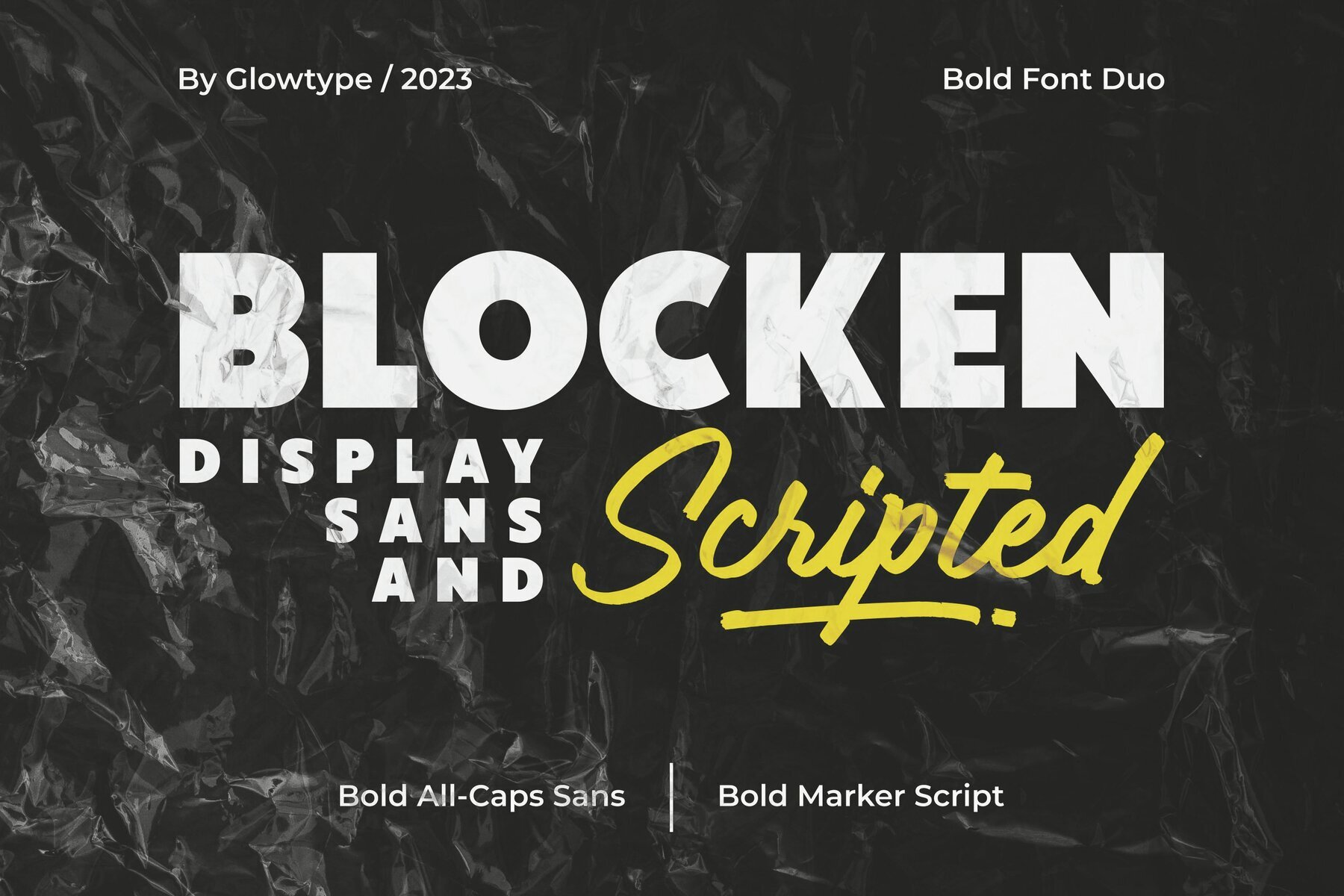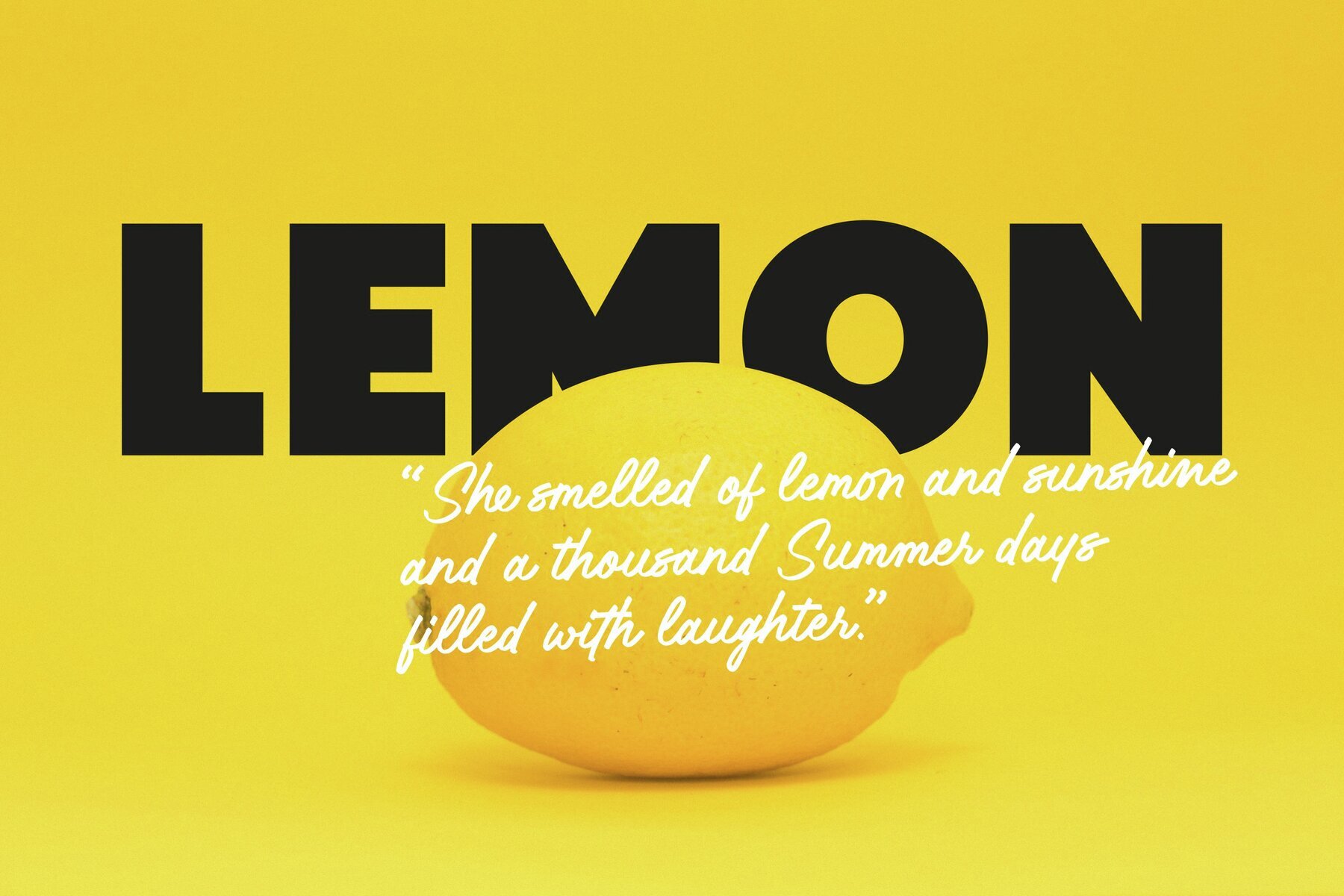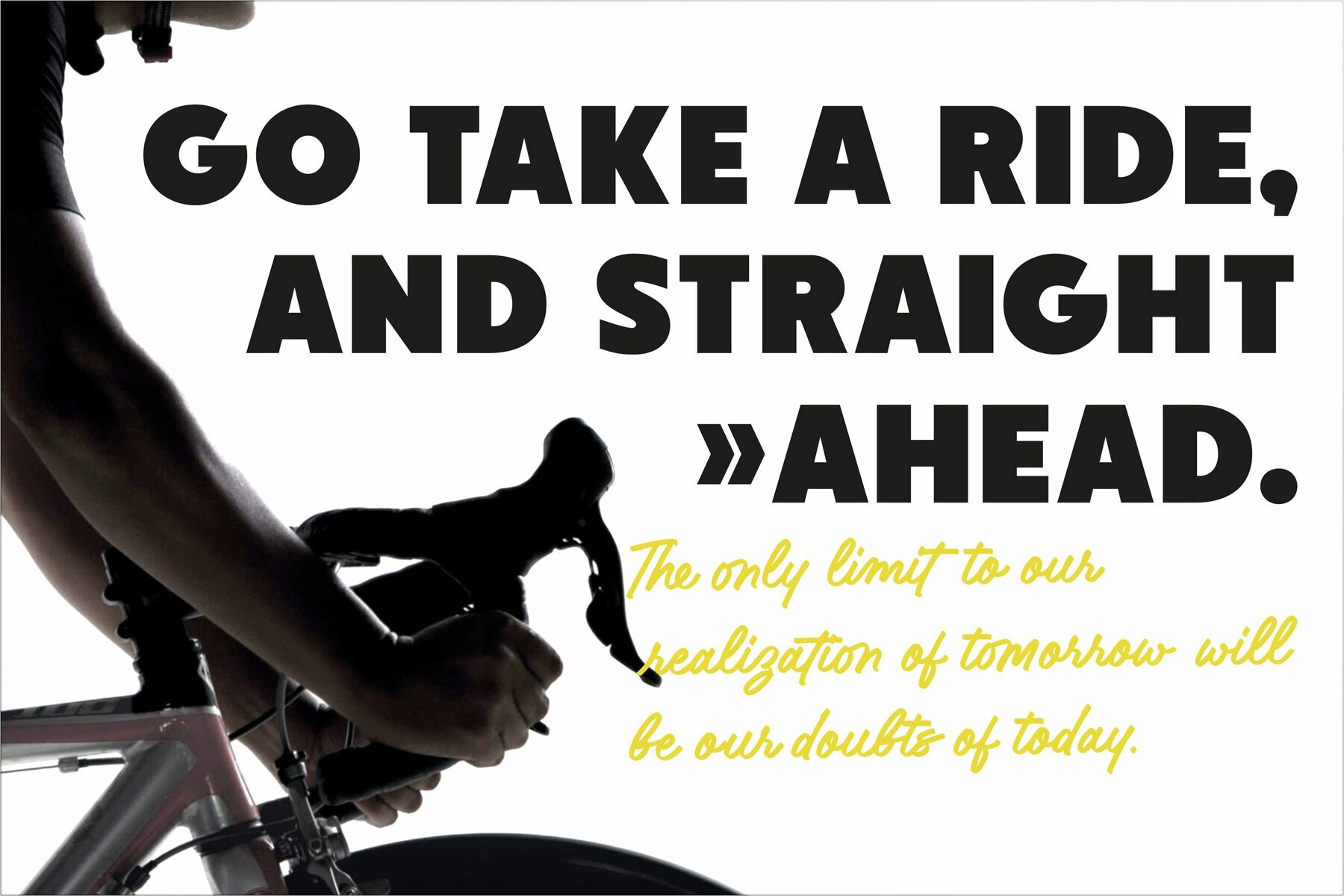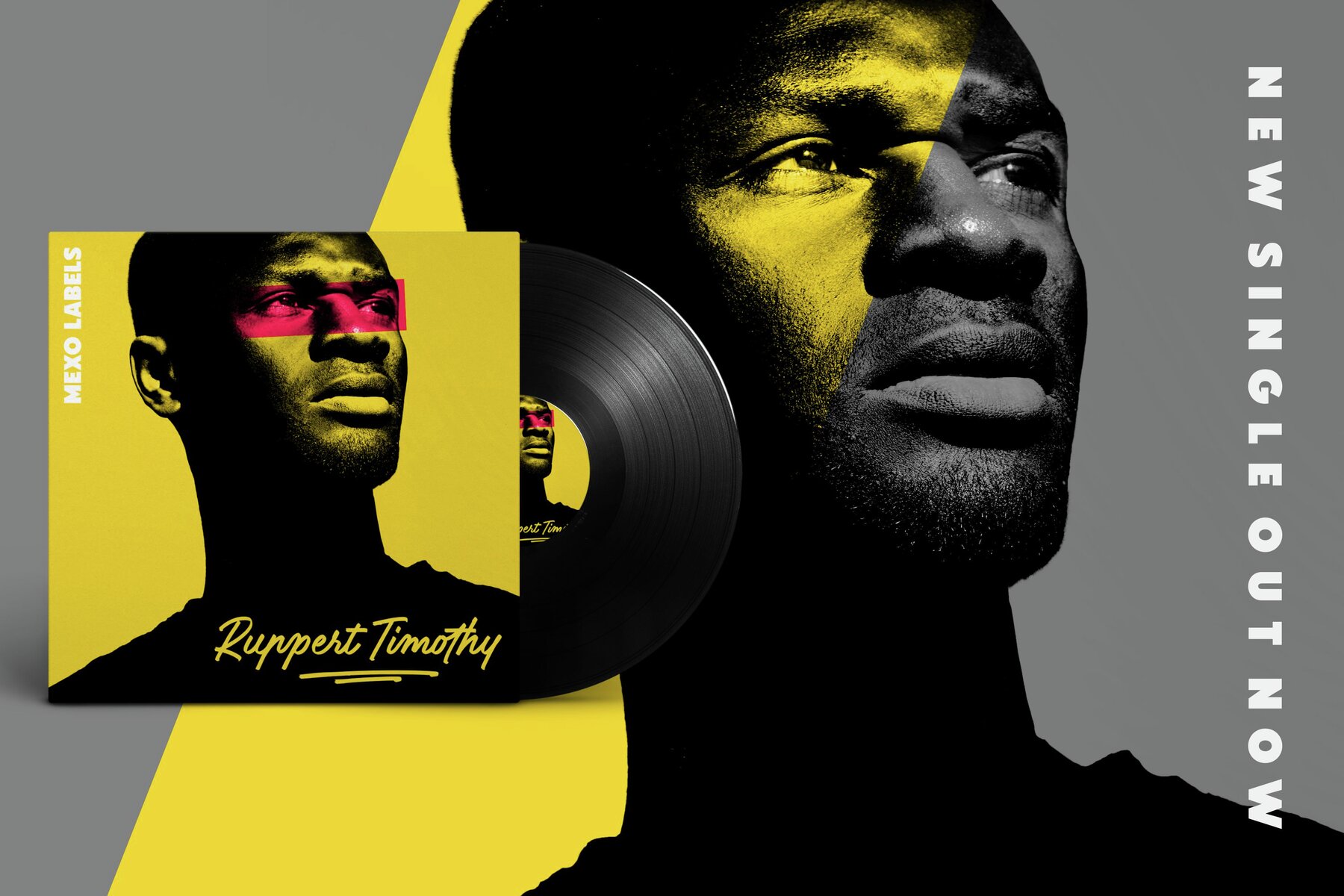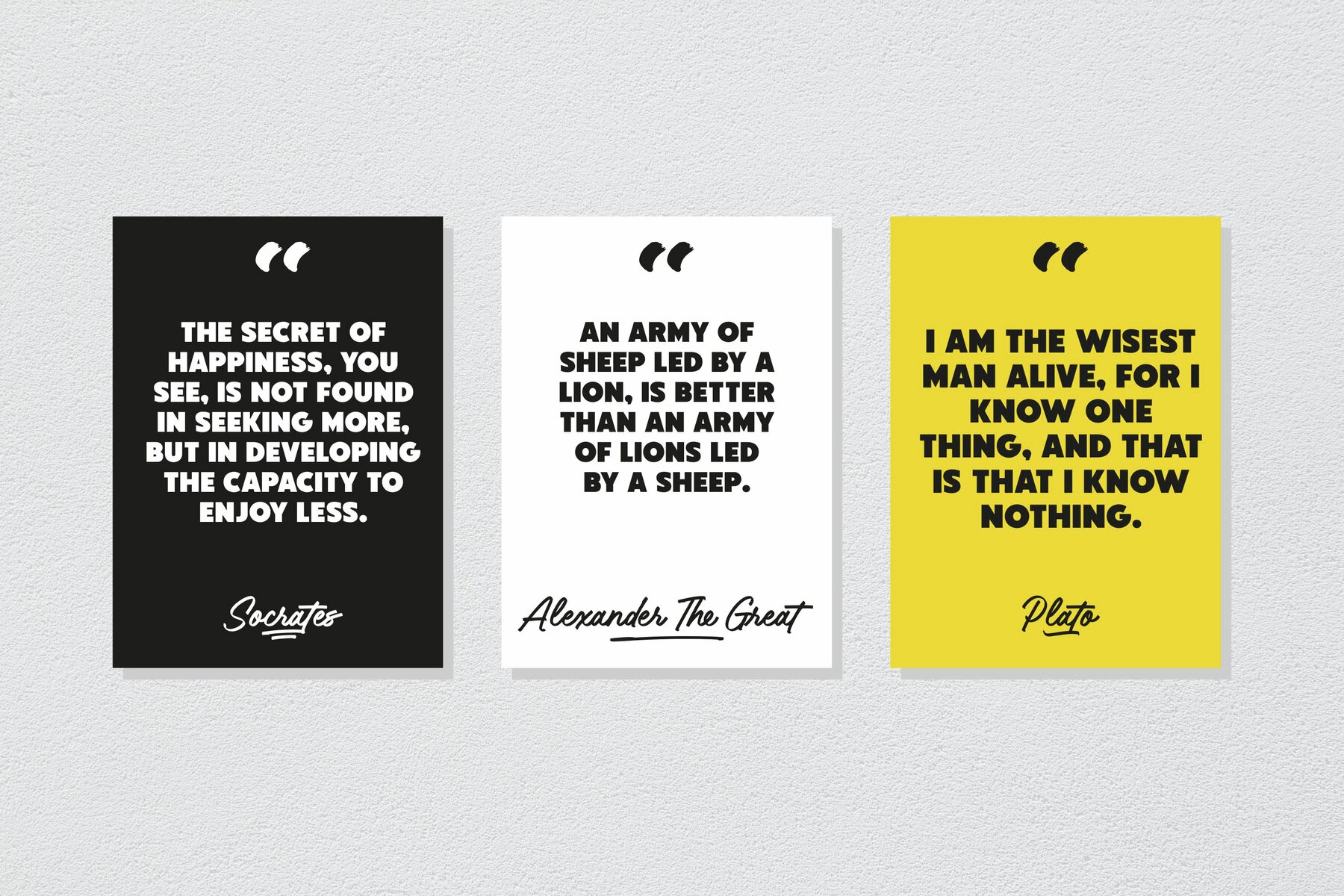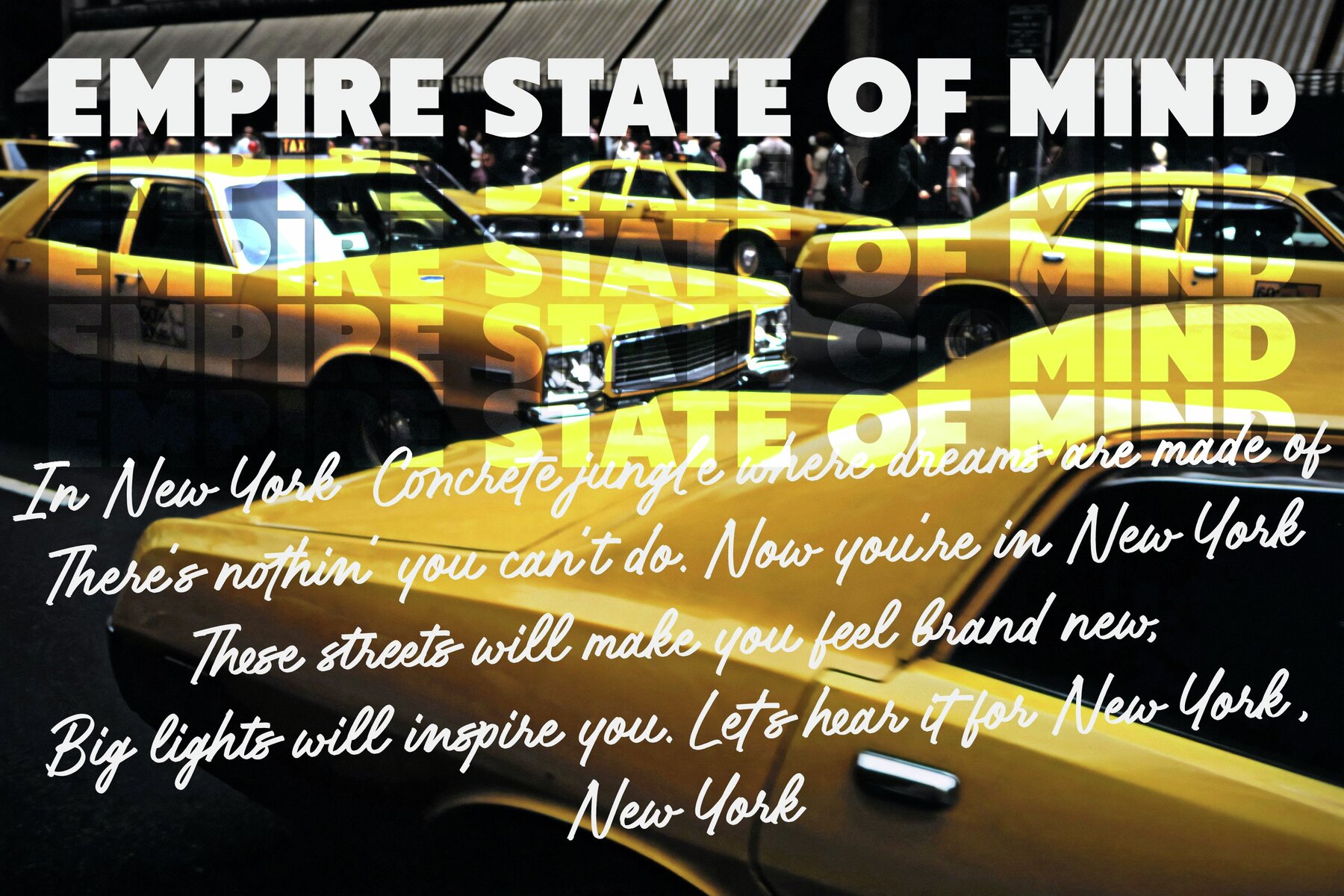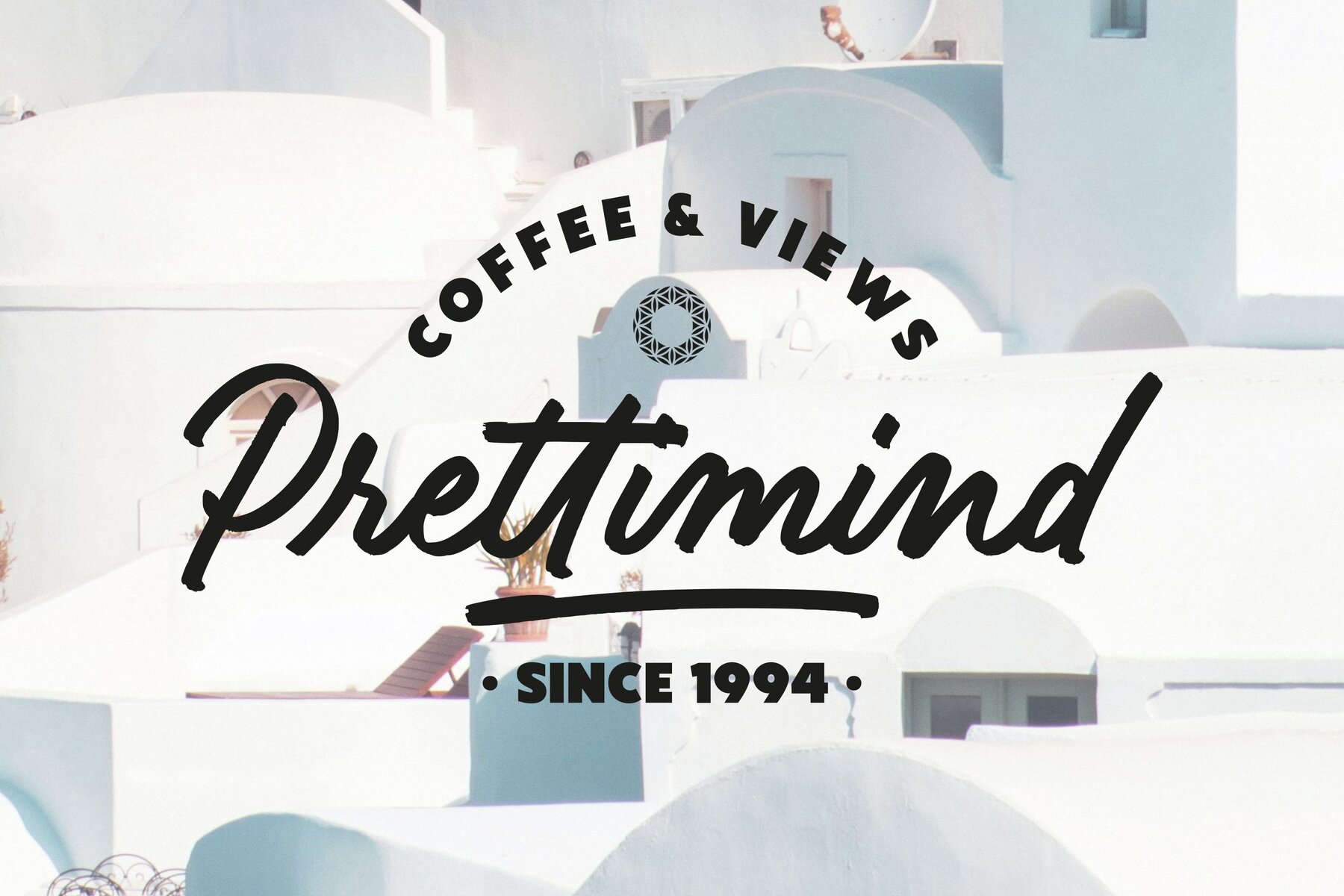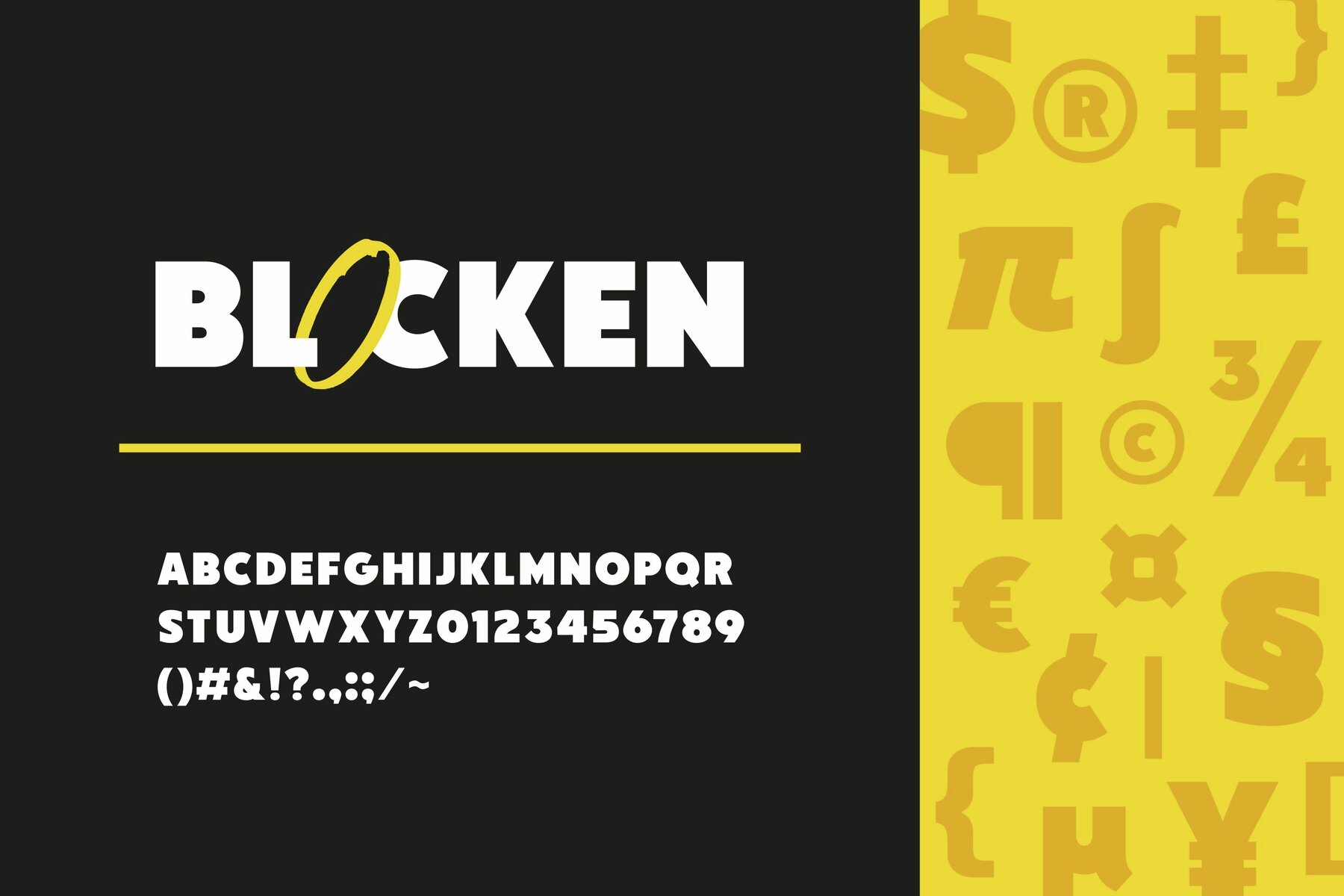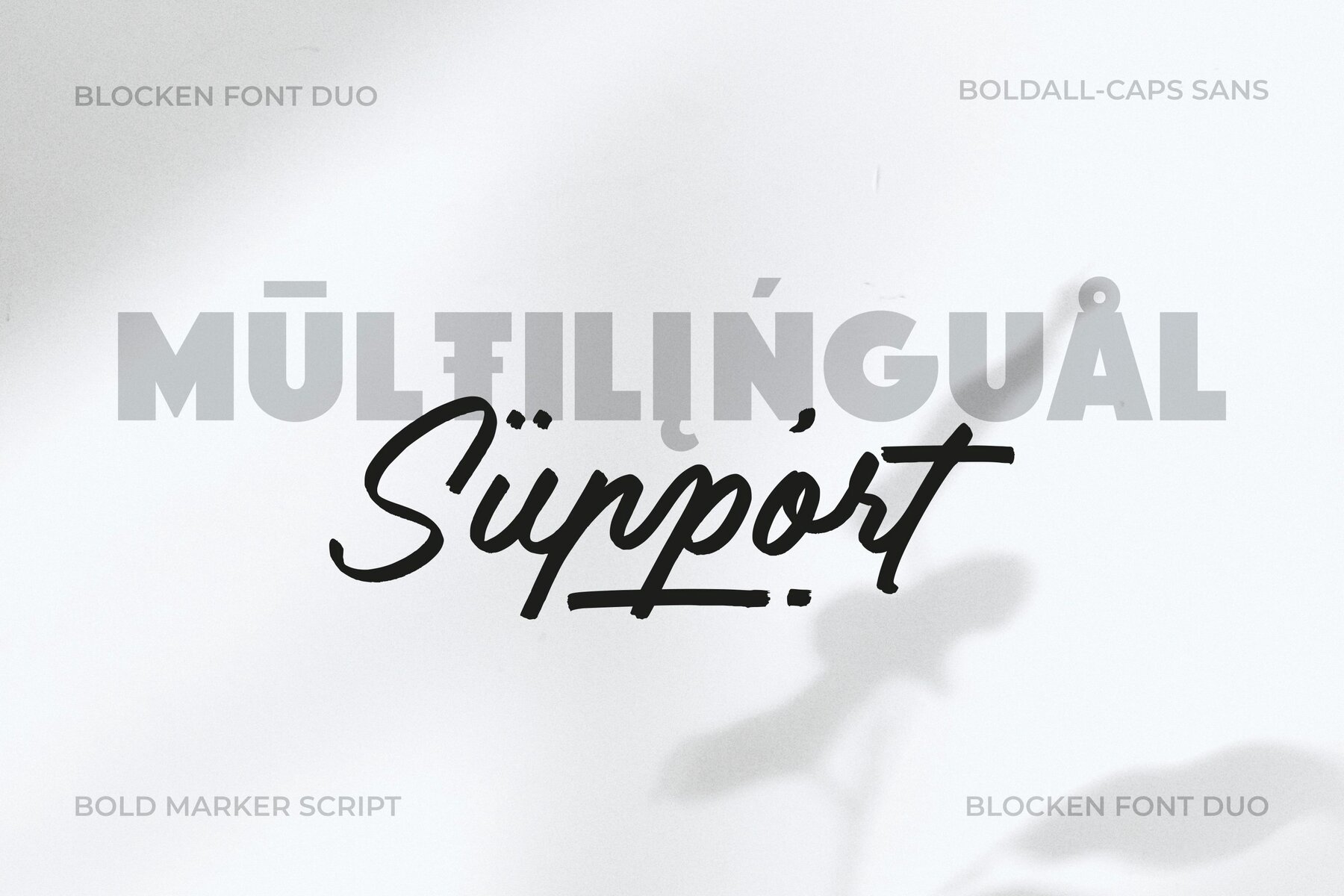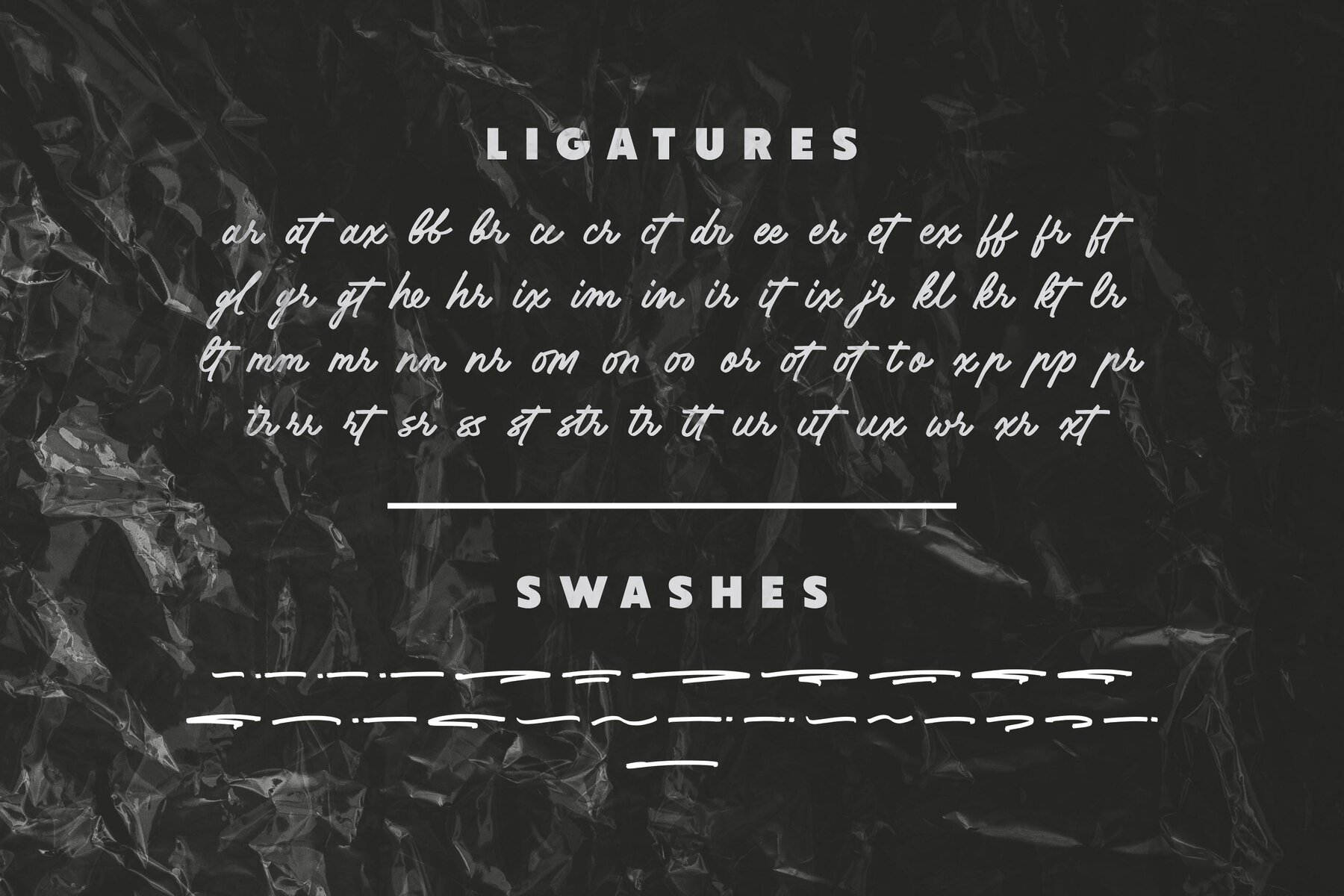
Blocken Font Duo
Blocken offers a bold, masculine presence for designs demanding attention. This dynamic duo features a bold all-caps sans and a vibrant bold marker script, ideal for headlines and brand messaging. Blocken's user-friendly design makes it a seamless fit for major design software, enhancing any designer's toolkit. Perfect for marketing materials, websites, logos, packaging, apparel, or merchandise, it stands as a versatile choice for diverse creative projects.Blocken Duo: Impactful and Versatile Font
Distinct Styles